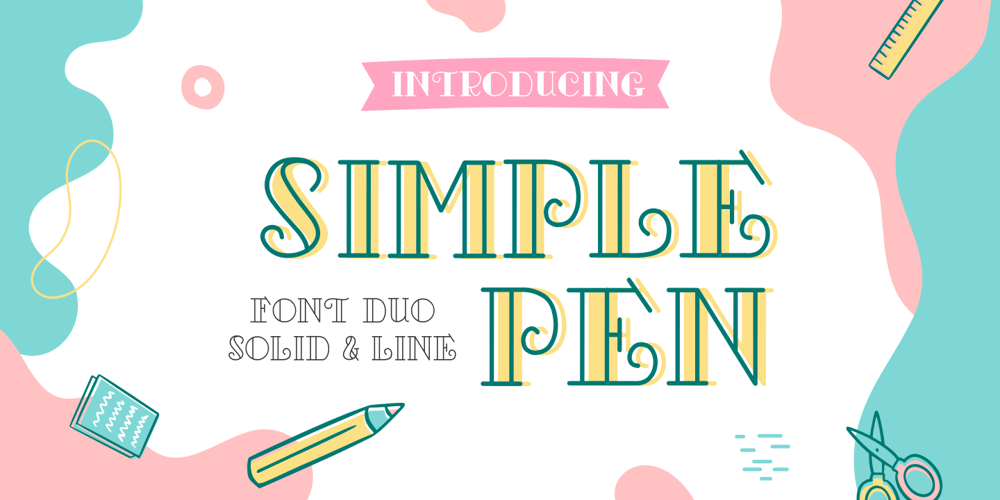
Simple Pen Font Family was designed by Zeenesia Studio and published by Zeenesia Studio. Simple Pen contains 2 styles and family package options. Simple Pen Font Duo, Introducing of our new product the name is Simple Pen, Simple Pen is a Quirky Serif Font. came with two style, Solid and Line who make your design so classy, Simple Pen very good for crafting, kids poster, promotion poster, cartoon, comic etc